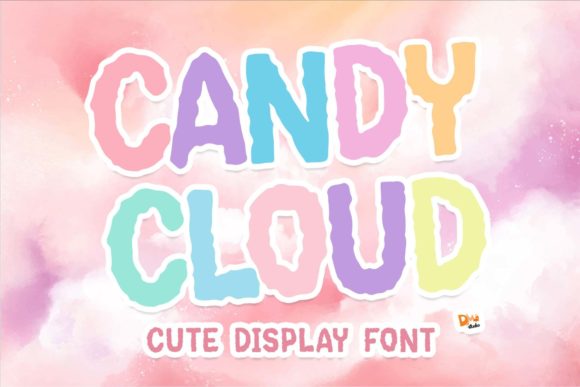
The Sweet Spot: Discovering the Candy Cloud Font
I’ll never forget the time I was working on a whimsical branding project for a children’s bakery, and I just couldn’t find the right font to match the playful vibe. The client wanted something fun, yet elegant, and I was on the verge of creative despair. That’s when I stumbled upon the Candy Cloud font – a game-changer that saved my design (and my sanity)! In this article, I’ll share my love for this cool and fun display font, its features, and how to make the most of it in your creative projects.
• ✅ Unique and playful design that’s perfect for creative projects
• ✅ Highly legible, even in smaller sizes
• ✅ Versatile and adaptable to various design styles and themes
• ✅ Extensive character set, including OpenType features and glyphs
• ⚠️ May not be suitable for very formal or professional designs
• ⚠️ Some characters may require manual kerning for optimal spacing
The Story Behind Candy Cloud: A Designer Inspiration
Candy Cloud was designed with one goal in mind: to create a font that’s as sweet as it is versatile. The designer, inspired by the whimsical world of childhood treats, crafted a font that’s both fun and elegant. With its unique blend of playfulness and sophistication, Candy Cloud is sure to become a favorite in your font library.